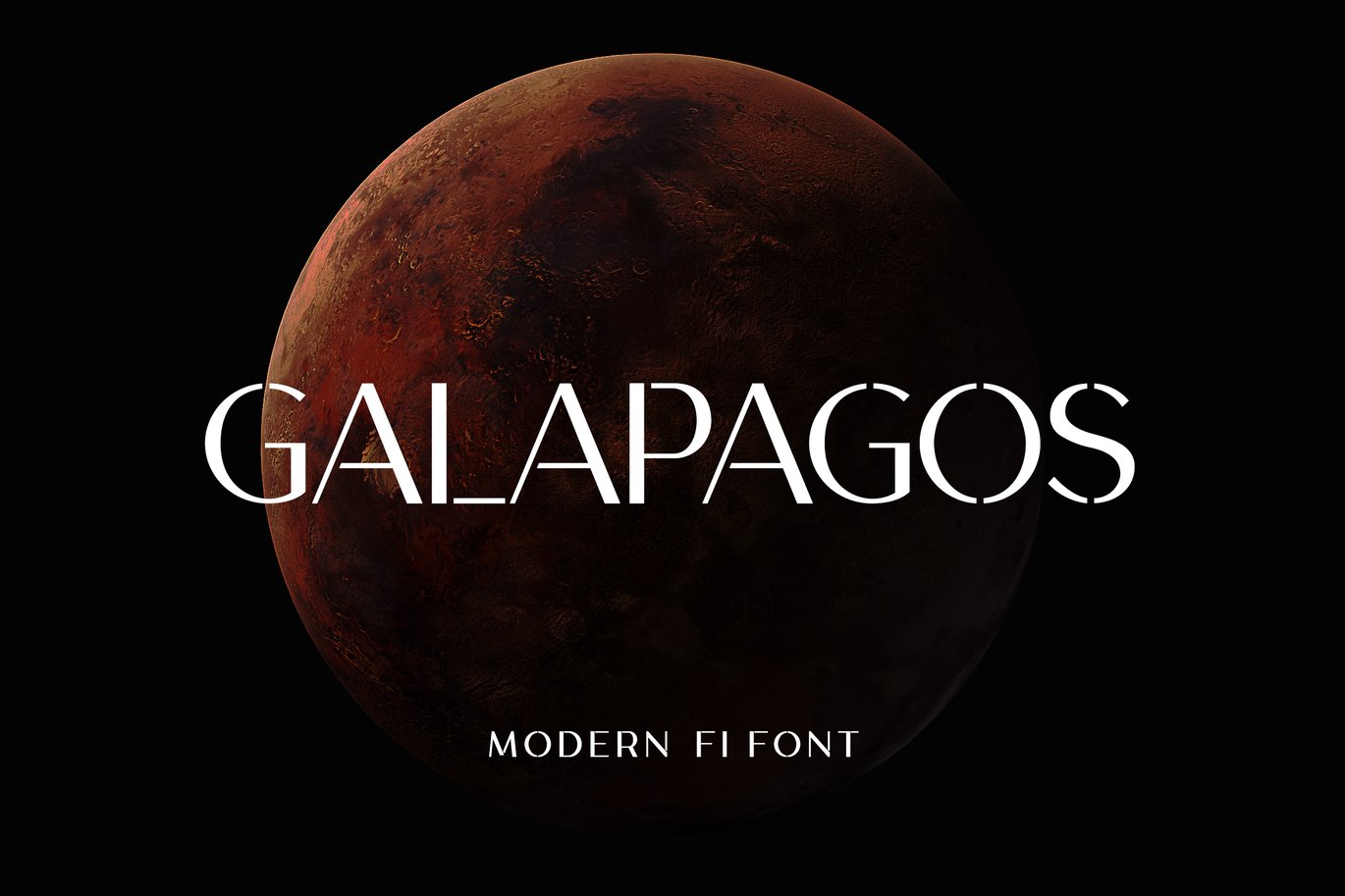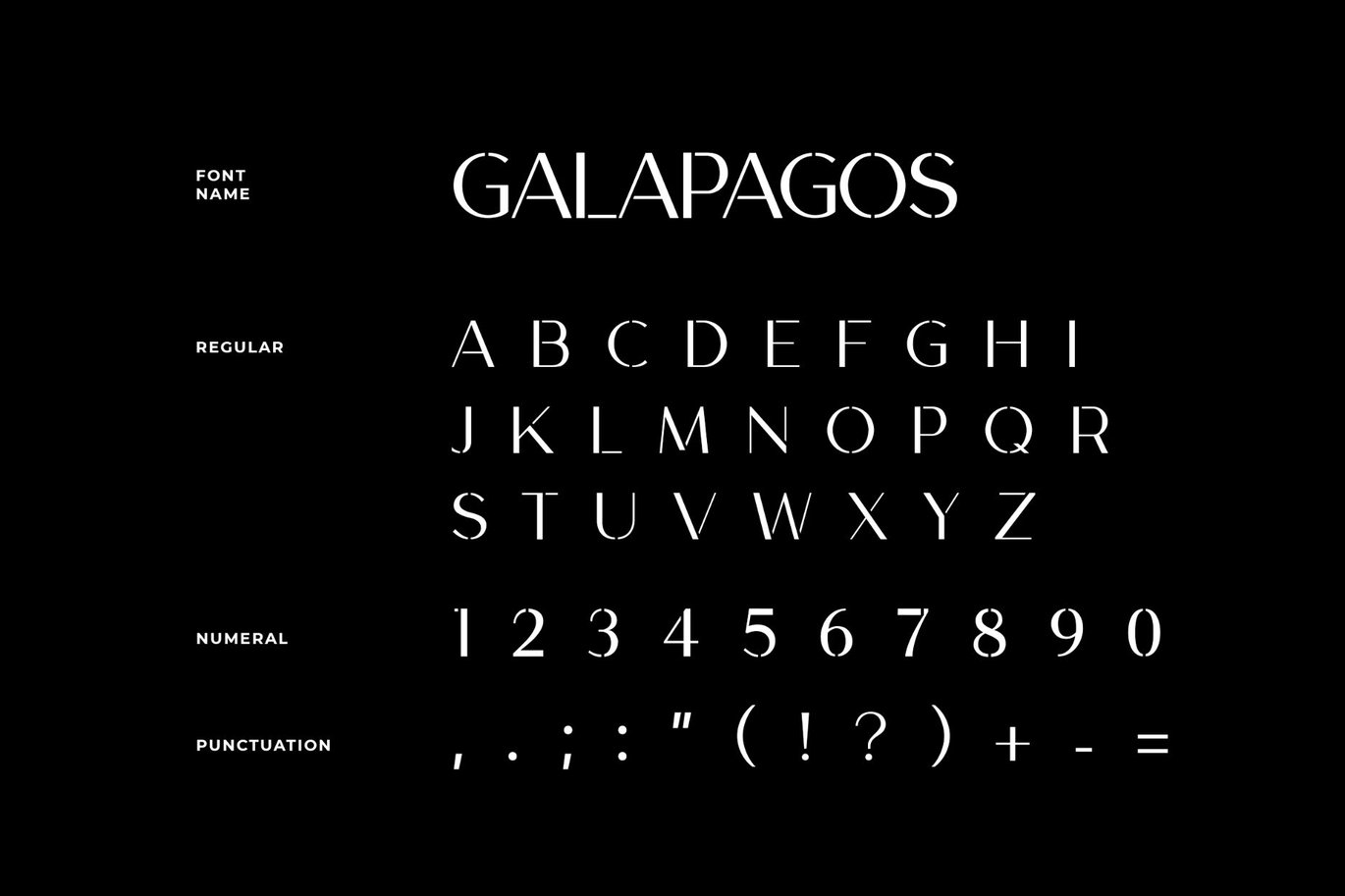
Galapagos Modern Font
Galapagos modern and futuristic Sans Serif font, inspired by sci-fi and technology, so we designed the font with a modern feel. Very playful and science-friendly well suited for branding, magazine, marketing design, technology, sci-fi design, bag, headlines, and display design pieces as well as short length text blocks.